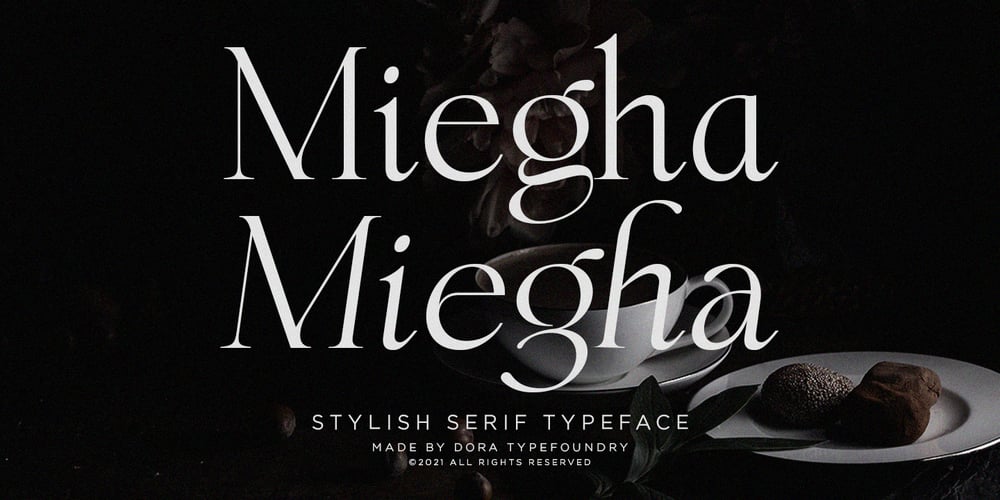
Miegha Font Family was designed by Zahratul Laila and published by Dora Typefoundry. Miegha contains 2 styles and family package options. Miegha is a serif typeface inspired by the beauty of classic serif and calligraphy styles, Both upright and italic fonts blend with modern appeal and unique binding, high contrast and light weight font perfect for feminine logo signs, fashion heads & editorial designs, branding projects , Apparel Branding, packaging, magazine titles, advertisements, T-shirts, postcards and more. Here’s what’s included:· Alternates & Ligatures· Numbers & punctuation· Characters with accents· Supports Multiple Languages· PUA Encoded This type of family has become the work of true love, making it as easy and fun as possible. I really hope you enjoy it! Thank You!